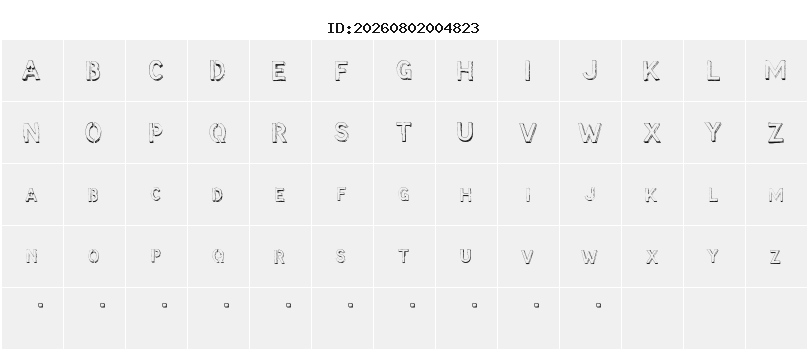
• Font Name: McCoy - Hello Lori
McCoy - Hello Lori.ttf is a modern, elegant sans-serif font designed for ultimate readability and visual harmony. Perfect for branding, headlines, web design, and print materials.